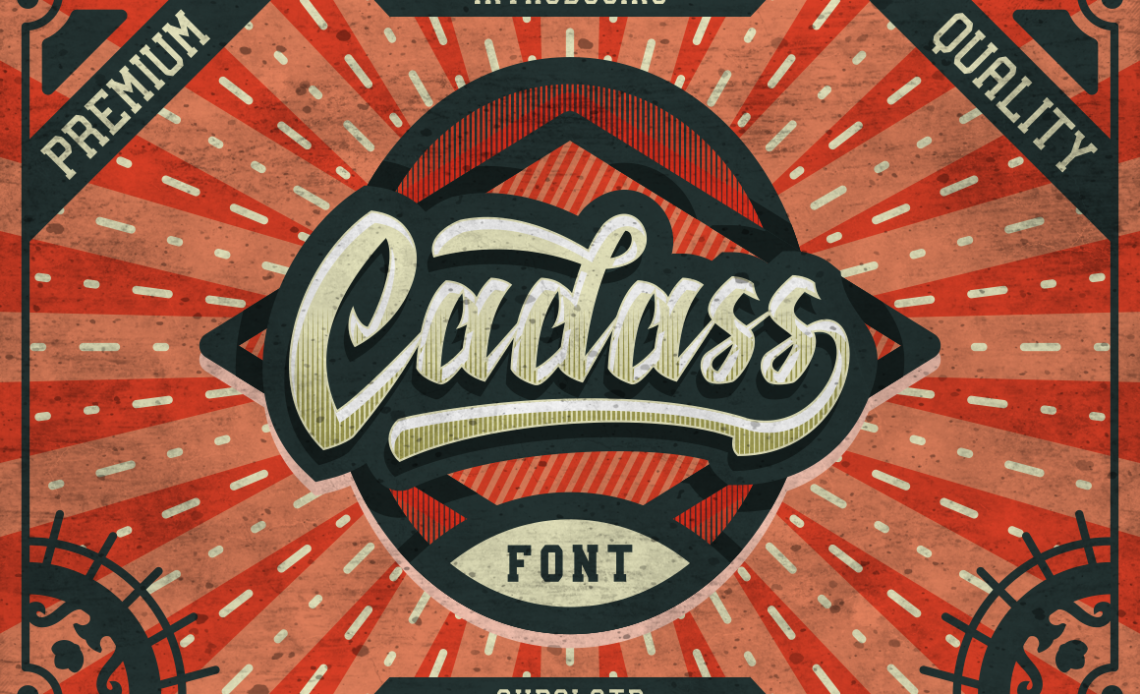
Journey into the world of Cadass, a font family that brings an irresistible charm to your designs, blending the timeless elegance of vintage with a contemporary flair. Step into a world of creativity and expression, where Cadass' bold and daring strokes command attention and leave a lasting impression.
Unleash your inner artist with Cadass, a font duo that offers a captivating fusion of Script and Sans Serif styles. Whether you seek to create a striking logotype, design eye-catching labels, or elevate your apparel with a touch of sophistication, Cadass rises to the occasion. Its versatility knows no bounds, allowing you to weave visual masterpieces that speak volumes.
With Cadass, intricate ligatures dance harmoniously across your designs, adding a touch of playfulness and finesse. Express your individuality through a myriad of glyphs, ensuring your creations stand out from the ordinary. Experience the allure of a font family that breathes life into your words, transforming them into works of art.
Indulge in the beauty of Cadass, a creation of Subqi Std., a visionary font designer renowned for their impeccable attention to detail and unwavering commitment to excellence. Let your designs take center stage, adorned with the grace and charisma of Cadass, a font family that ignites your imagination and sets your creativity ablaze.
Elevate your designs to new heights with Cadass, a font duo that captivates and inspires. Its versatility and timeless appeal make it the perfect choice for designers seeking to make a statement. Whether you're working on branding projects, creating social media graphics, or designing eye-catching posters, Cadass transforms your ideas into visual masterpieces.